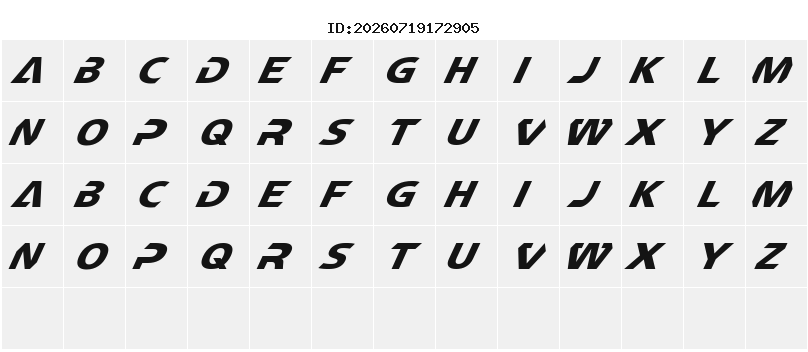
CF TechnoMania Preview
• Font Name: CF TechnoMania
• Font Style: Slanted
• Designer: CLOUTIERFONTES
• Manufacturer: PYRS Fontlab Ltd. / Made with FontLab
• Description: CF TechnoMania Slanted is a font by PYRS Fontlab Ltd. / Made with FontLab, designed by CLOUTIERFONTES in 2013.
About CF TechnoMania.ttf
CF TechnoMania.ttf is a modern, elegant sans-serif font designed for ultimate readability and visual harmony. Perfect for branding, headlines, web design, and print materials.